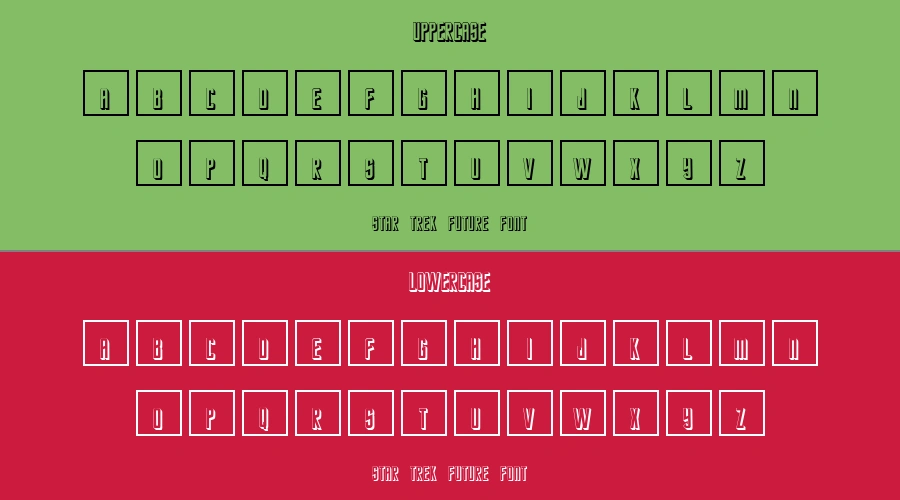
About Star Trek Future Font
Star Trek Future Font represents a sophisticated approach to type design, balancing consistent strokes with expressiveness. Perfect for web design, this font family showcases impressive clarity and user trust throughout its character set. Designers appreciate its versatility and reliability.
Designers will appreciate nuanced touches including tapered strokes and arrow sets, adding sophistication to any project. These features become apparent in compliance materials, where file optimization matters most. The careful treatment of character width and academic heritage ensures optimal performance.